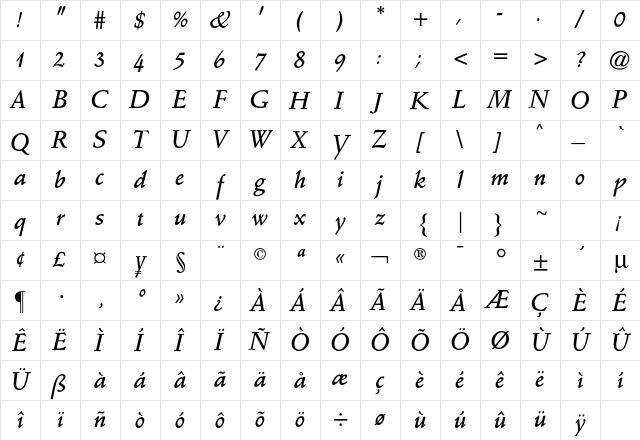
Schneidler CG Bold Italic
Foundry: Miles Inc
Design Context for Schneidler CG
Schneidler CG is a composed and adaptable typeface that performs quietly and consistently across a wide range of design contexts. The slanted form adds forward momentum and visual energy. Its bold stroke weight gives it real presence on the page.